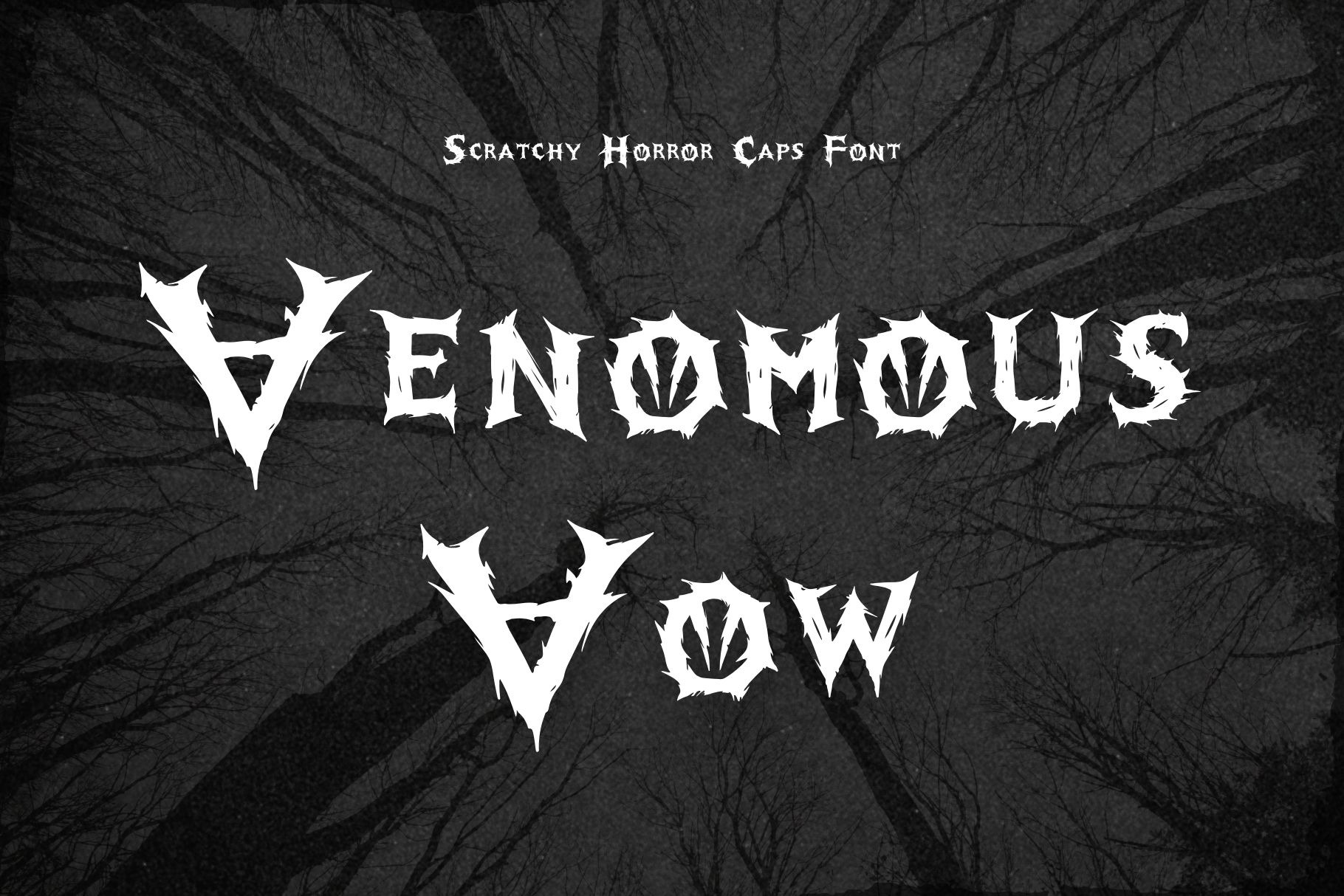
Spikey Scary Horror Font
Unleash Your Inner Demon with Venomous Vows: A Scratchy Caps Font
Make your designs pop-off with a dose of raw, untamed energy with Venomous Vows, a scratchy caps font that's both menacing and magnetic. This unique typeface boasts a hand-drawn aesthetic, with sharp, spiky edges that command attention.
Venomous Vows is perfect for projects that demand a bold, edgy vibe:
💀Horror & Halloween Designs: Craft bone-chilling posters, invitations, and social media graphics.
💀Podcast Covers: Lure listeners in with a title treatment that screams danger and intrigue.
💀Book Covers: Give your dark fantasy or thriller novels a cover that leaps off the shelf.
💀Branding & Logos: Infuse your brand with a rebellious, unconventional spirit.
What makes Venomous Vows unique?
🎃Distinctive Scratchy Style: Adds a raw, hand-crafted feel to your designs.
🎃Versatile Caps Format: Features uppercase and lowercase letters as smaller caps for a cohesive look.
🎃76 Carefully Crafted Glyphs: Includes punctuation and numerals to complete your typographic arsenal.